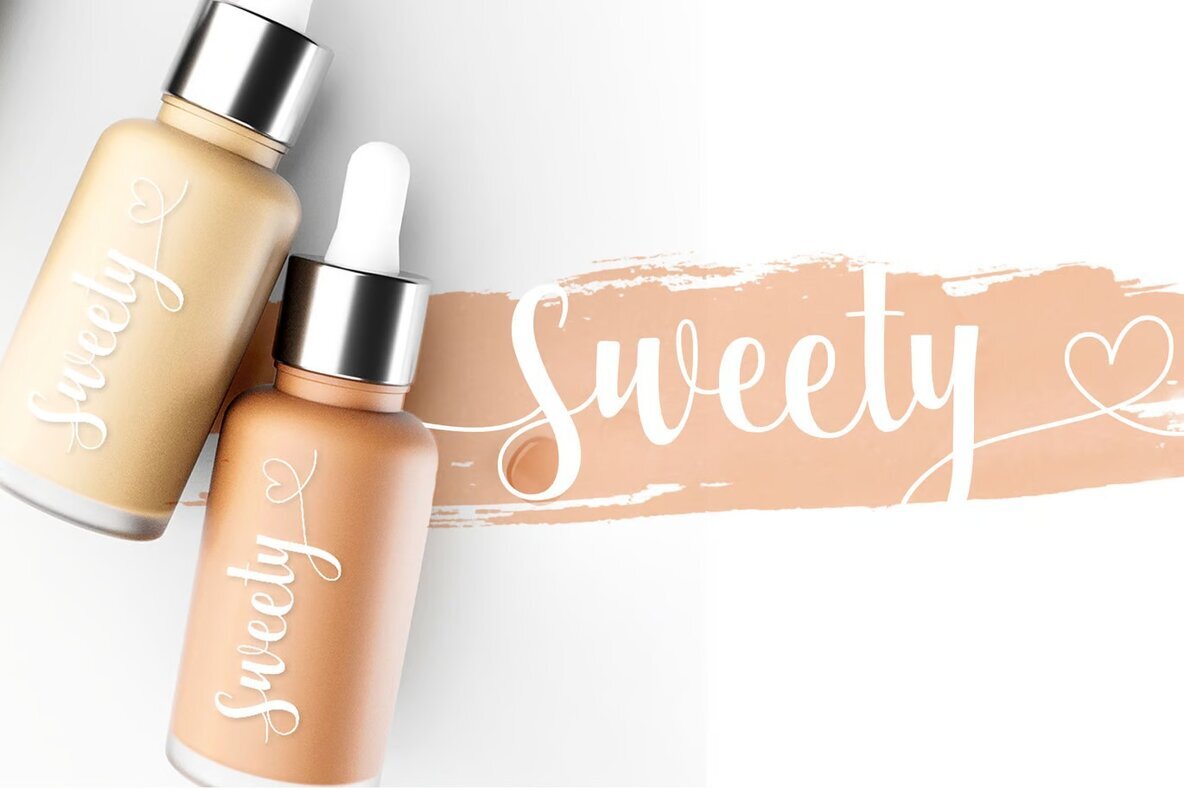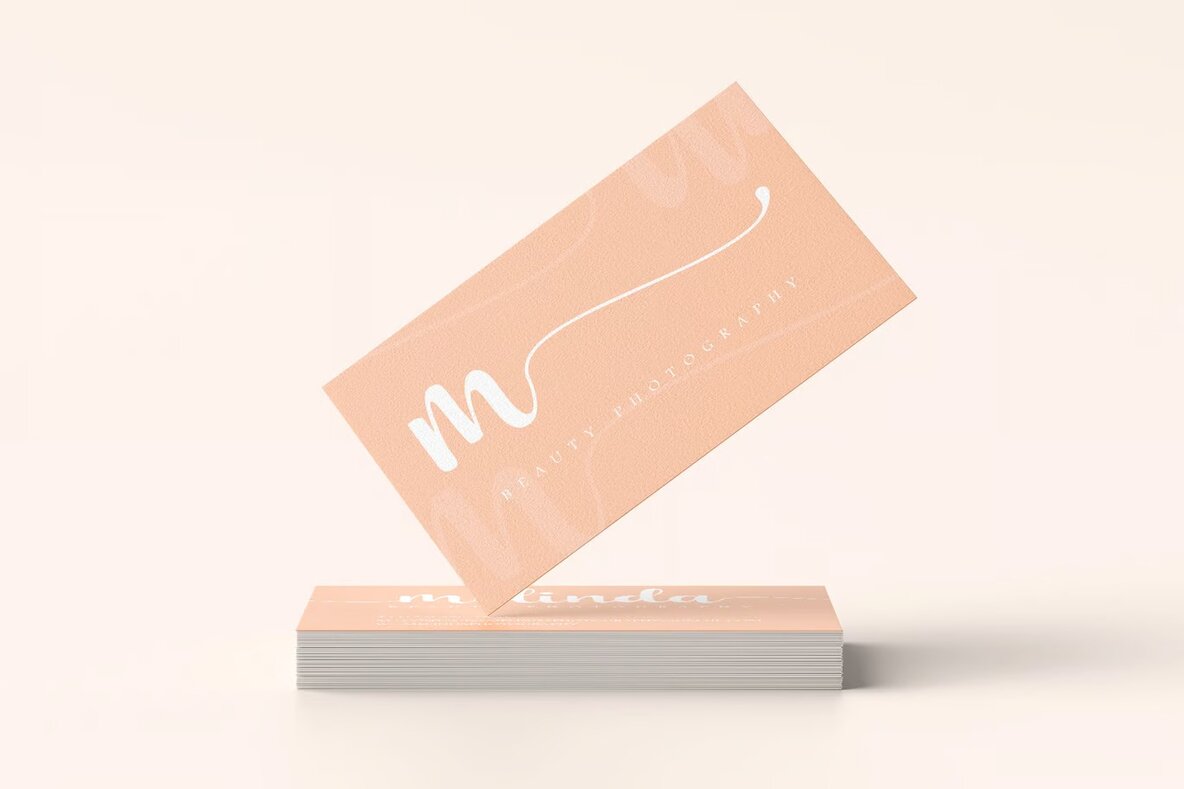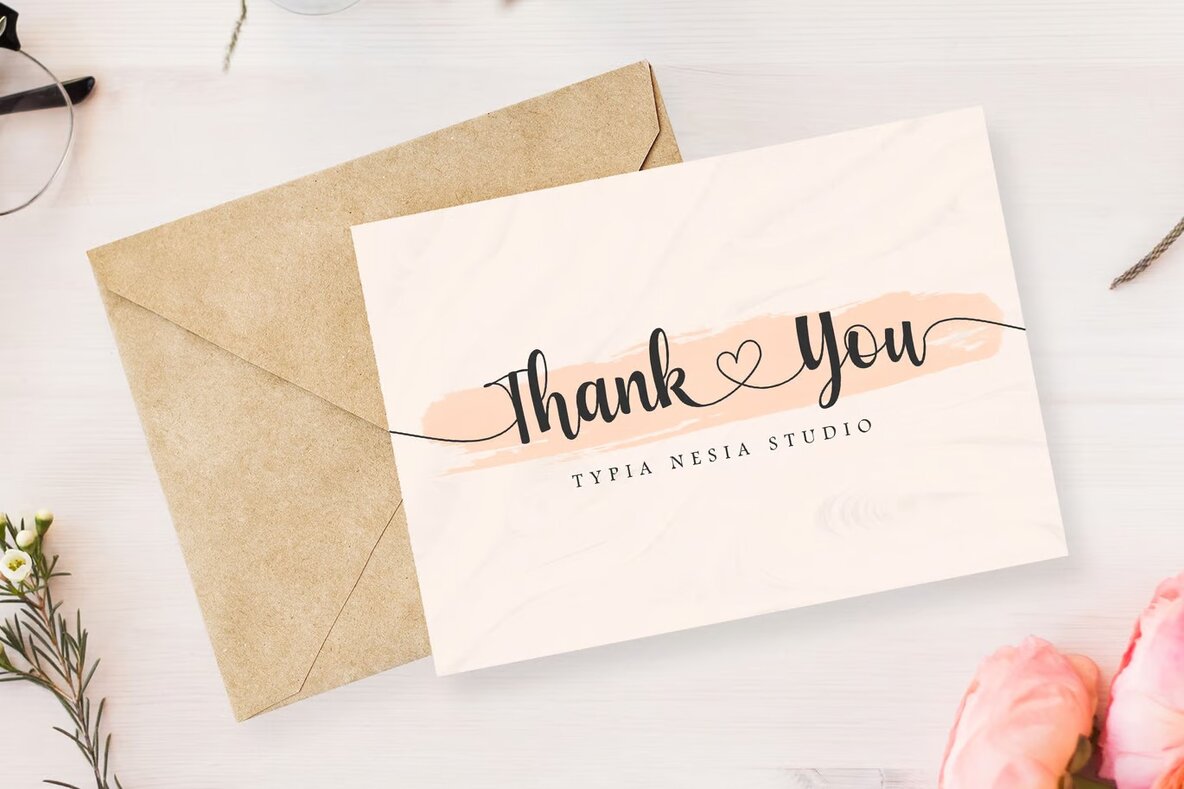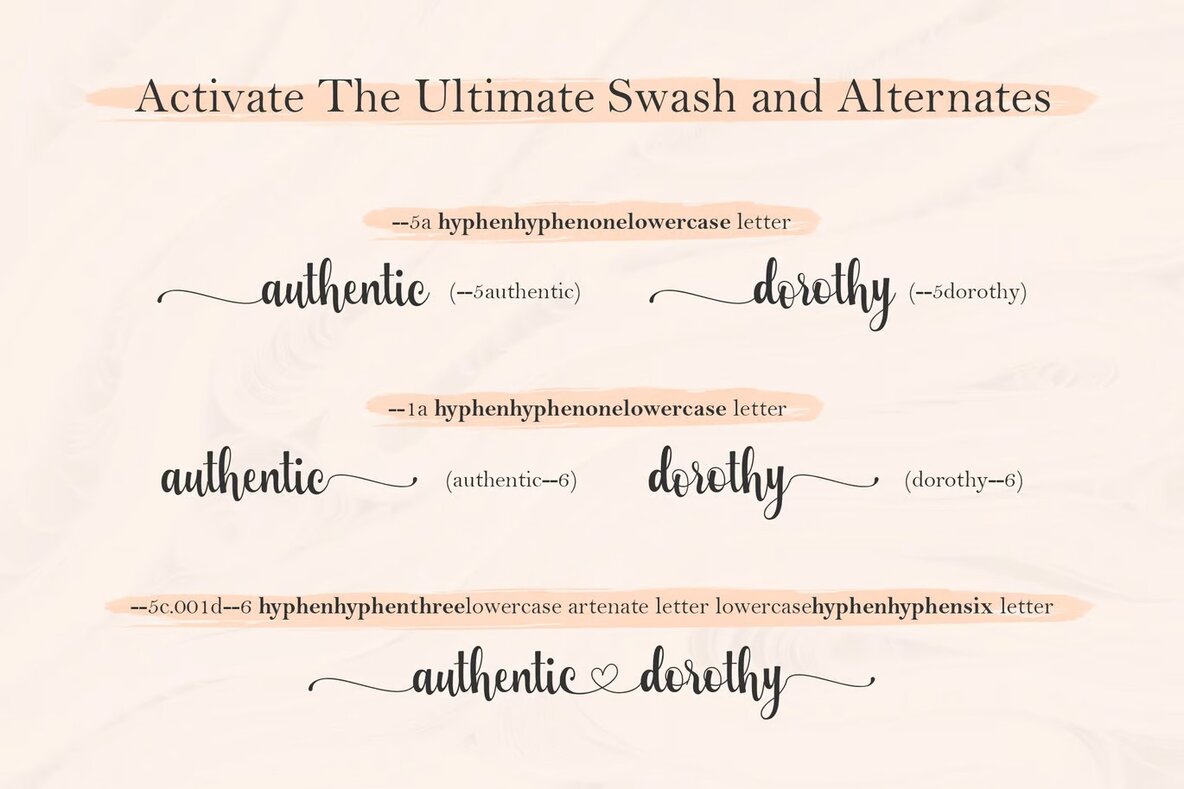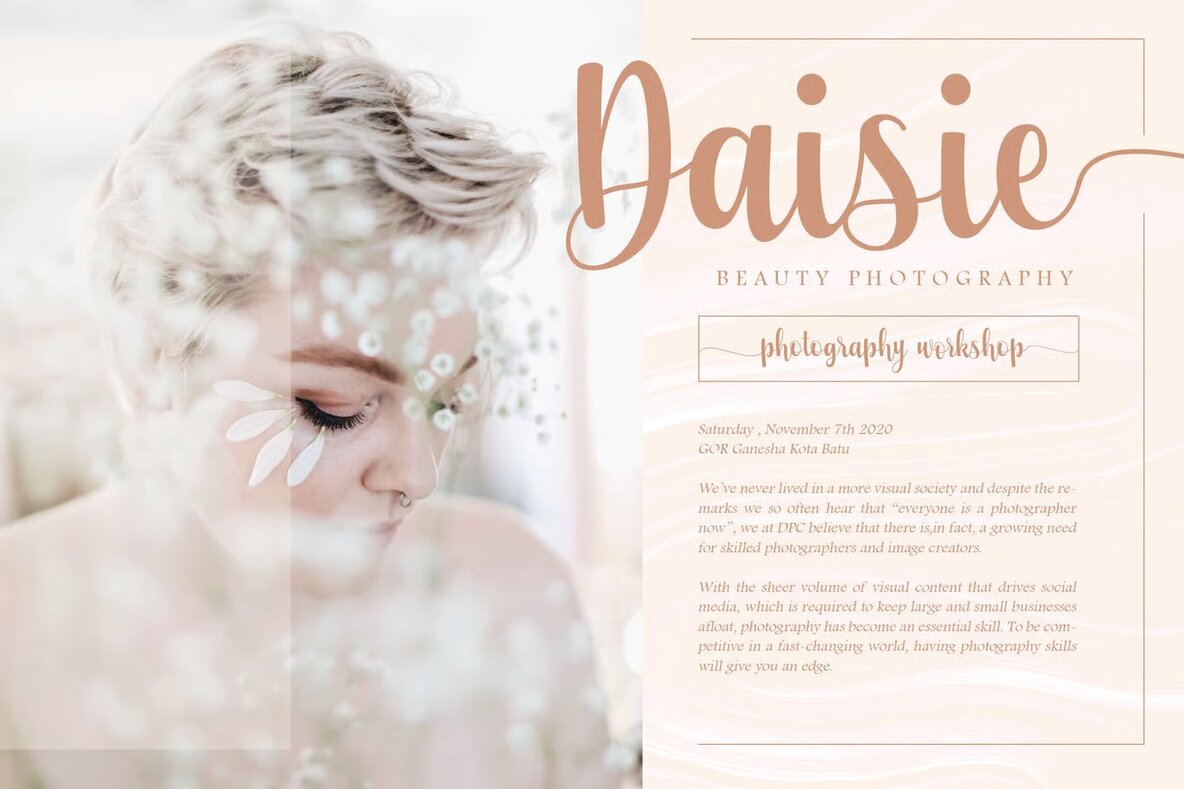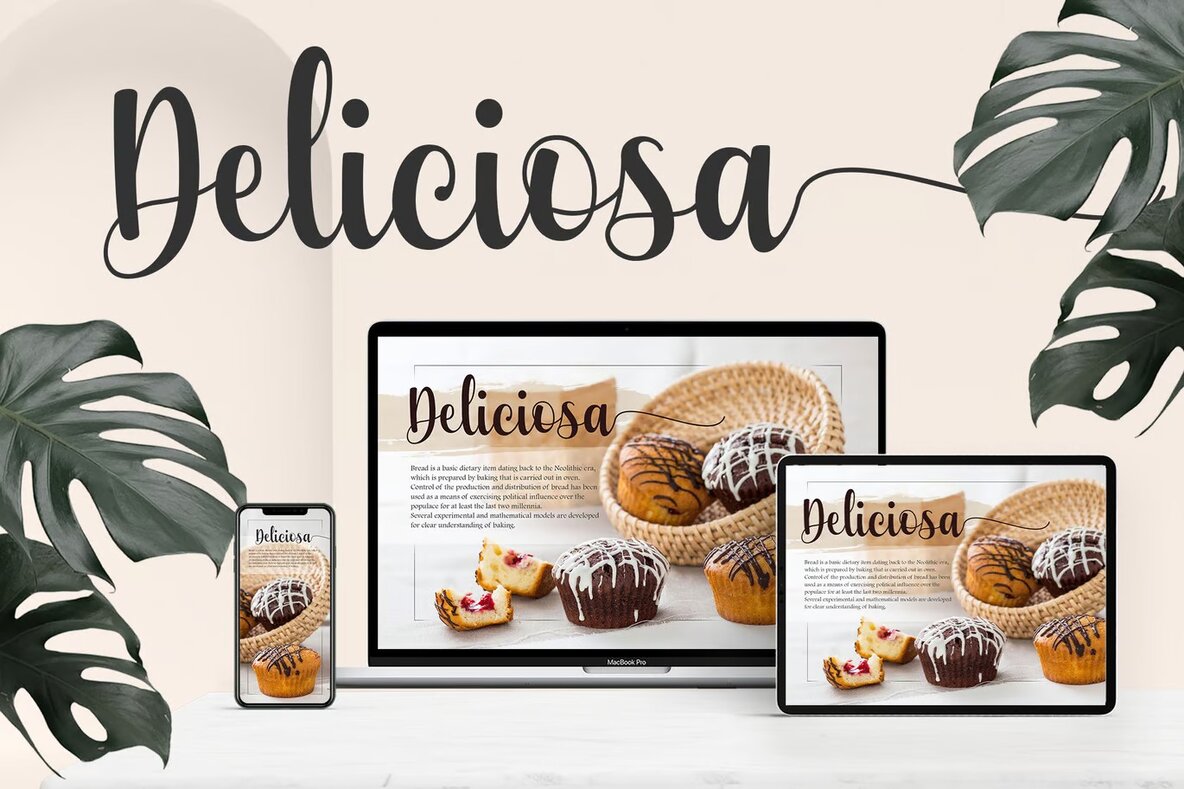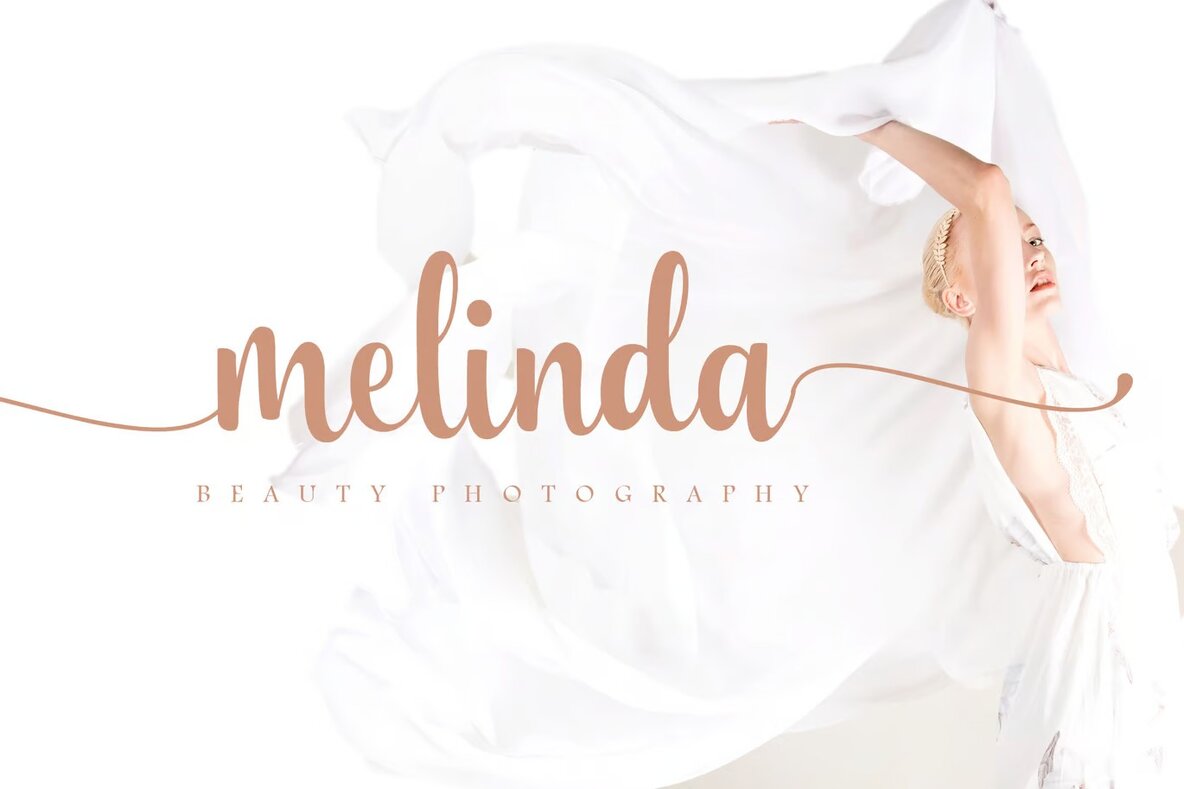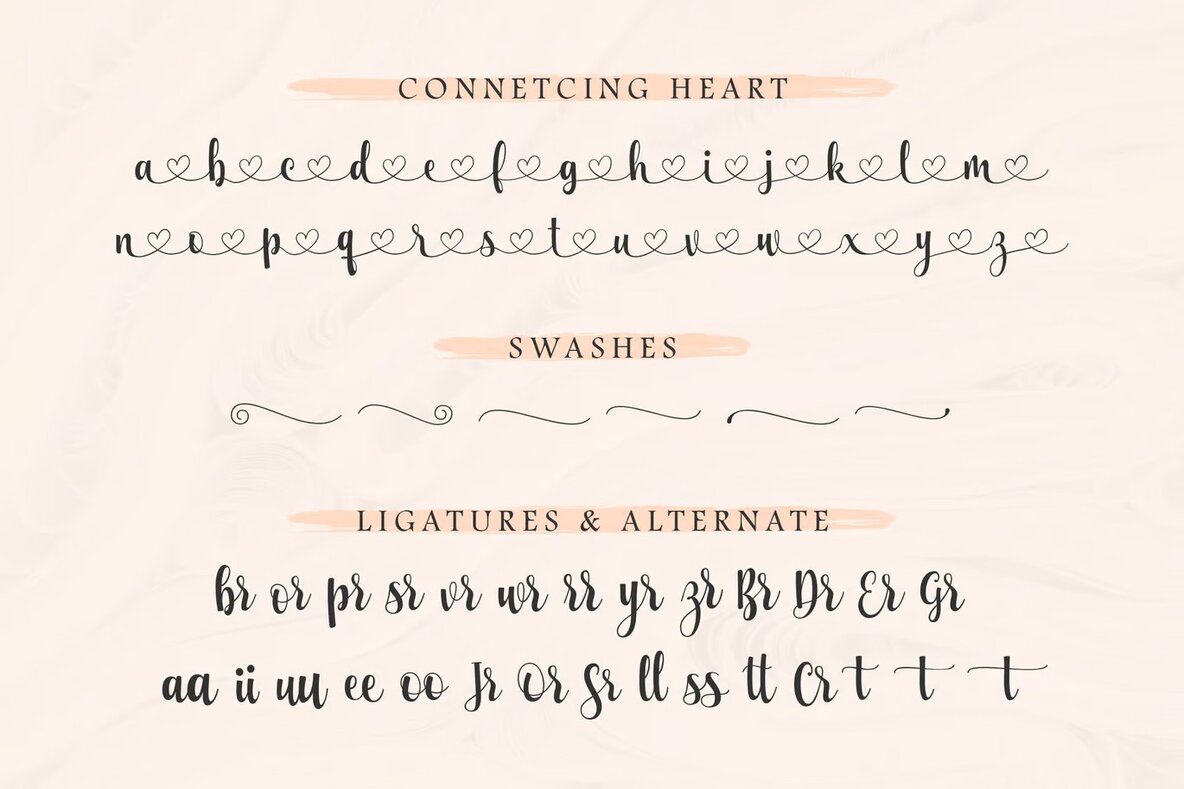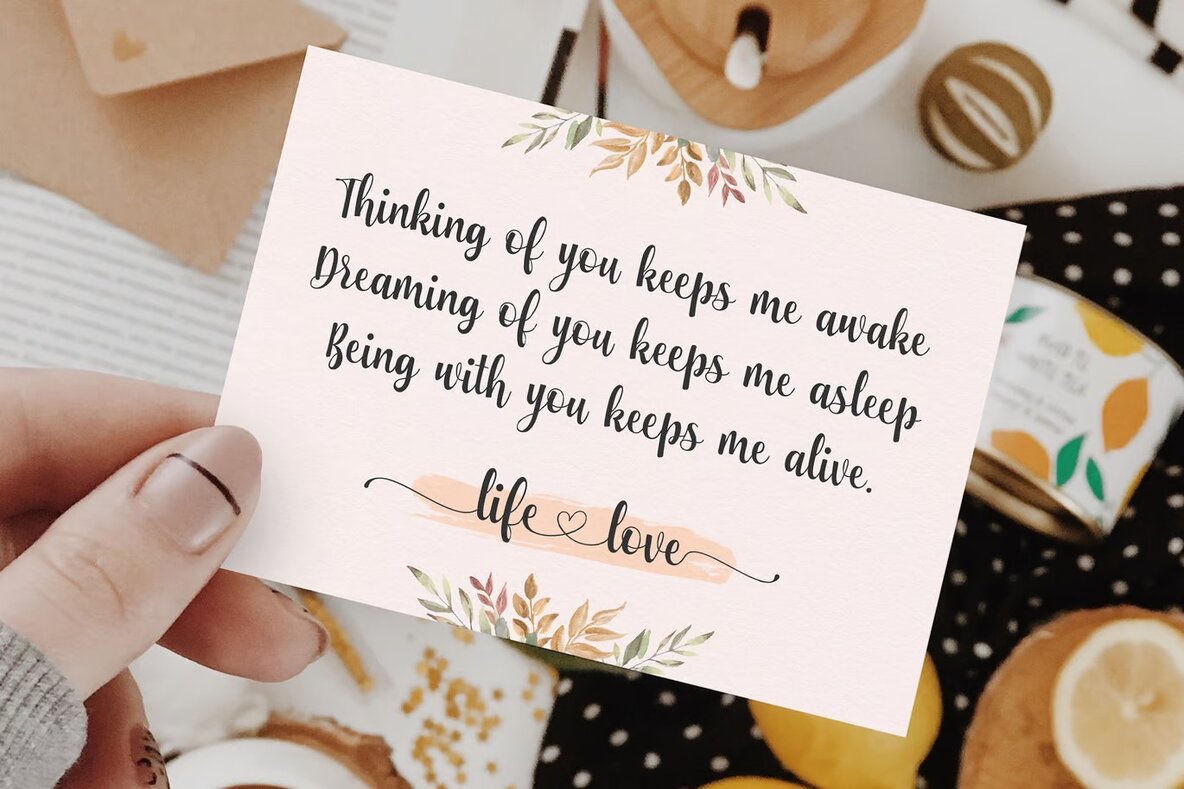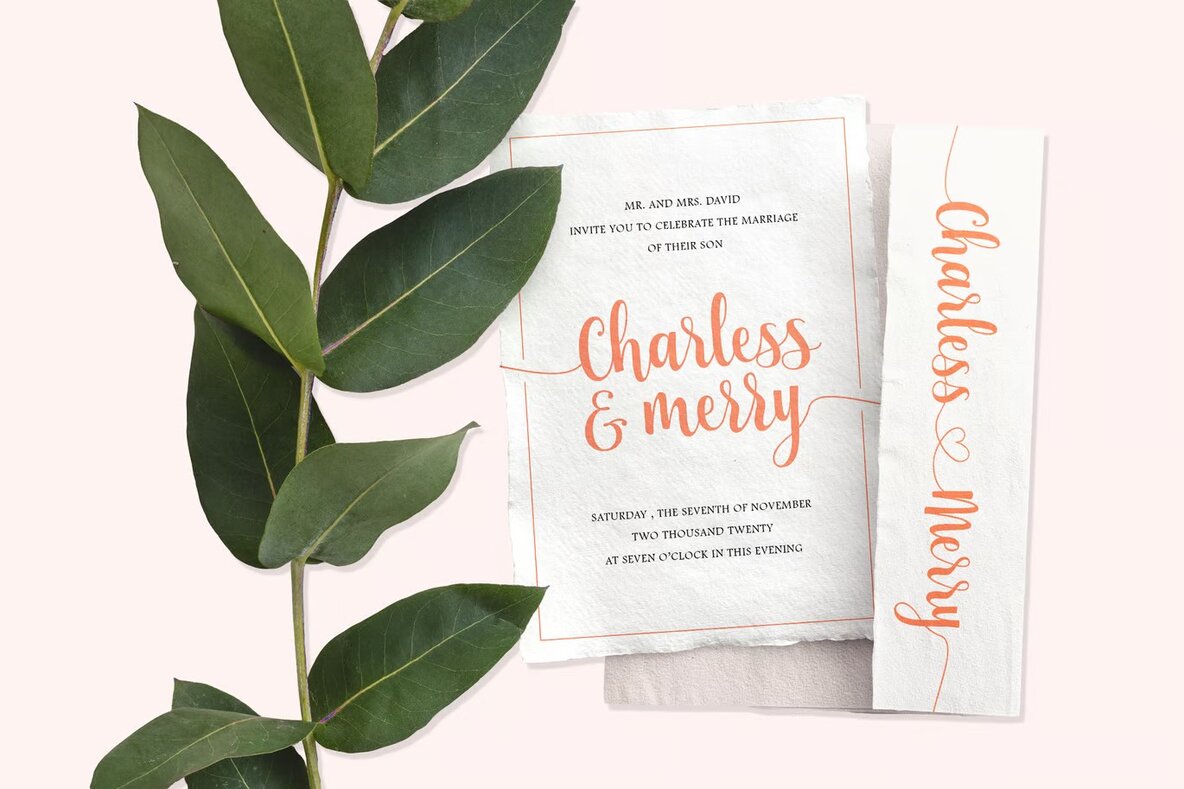
Helena Bloom Font
Helena Bloom is a sophisticated calligraphy script font, ideal for wedding designs, social media, branding, invitations, and greeting cards. Its unique flow and elegant calligraphic style make it a versatile choice for any design project. This font is crafted to offer you a beautiful and effortless way to create stunning calligraphic designs.
Featuring ligatures and swashes, Helena Bloom allows for creative combinations to enhance your typography projects. Whether you're designing for a blog, social media, or a formal invitation, this font provides the perfect balance of elegance and readability. Let your creativity flourish with Helena Bloom, and bring a touch of artistry to your next project.